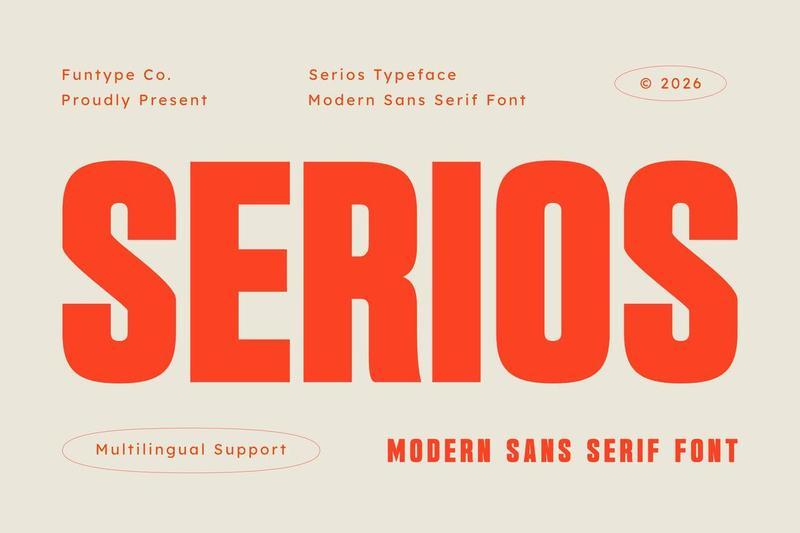
**Serios Modern Condensed Sans Serif Font**
**Serios** is a bold, high-impact, and modern condensed sans serif font, engineered to bring a commanding structural presence, clean geometric weight, and immense graphic authority to contemporary display layouts. Built with a towering vertical profile, heavy block lines, and high-contrast terminal definitions, Serios introduces a professional editorial, high-end corporate lifestyle, and prominent media aesthetic designed to claim immediate visual focus.
This font family is the definitive choice for creative directors, digital publishers, and agency brand designers looking to implement a space-efficient, heavyweight typography identity for major text hierarchies. Whether you are developing corporate enterprise logotypes, technical marketing collateral, luxury lifestyle editorial covers, cinematic movie title sequences, architectural presentation headers, or prominent digital live-stream layouts, Serios stands out with premium legibility and structural confidence.
**Main Features:**
– Modern Condensed Sans Structure: Optimized with a narrow horizontal profile for dense, space-saving, and high-impact title compositions.
– Towering Geometric Dimensions: Elongated vertical heights crafted to secure immediate audience attention in publication layouts.
– Multilingual Support: Fully loaded and prepared for cross-platform international marketing campaigns.
– Premium Industrial Aesthetic: Bold linear strokes balanced with clean block contours, perfect for cutting-edge corporate – identities and digital media networks.
**Best Used For:**
High-end editorial layout design, luxury lifestyle branding, corporate presentation titles, cinematic title sequences, real estate firm marketing materials, technology infrastructure headers, and large-scale web splash banners.